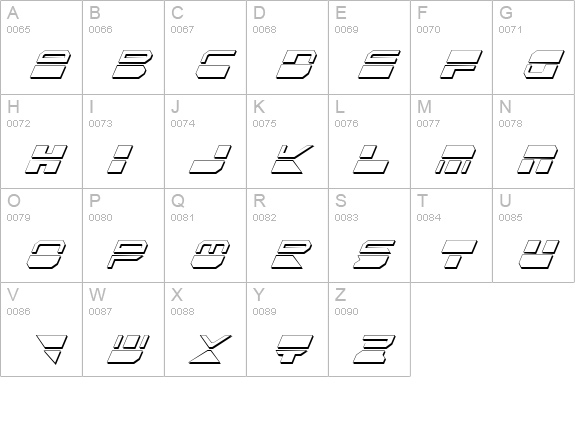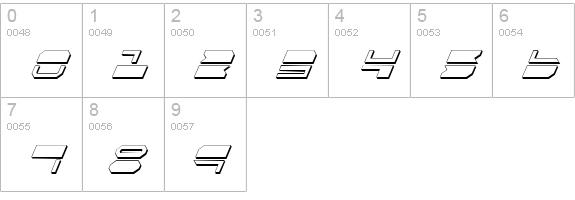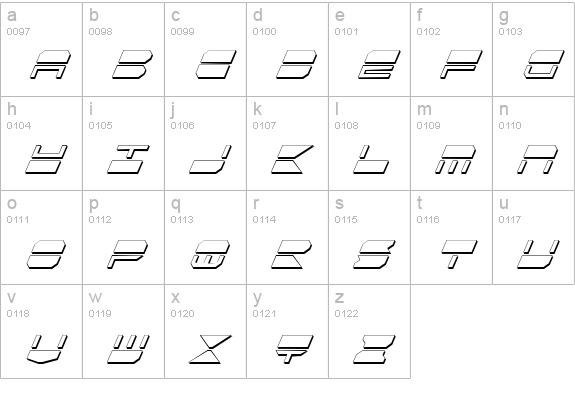
Quickmark Cond Shadow Ital is a distinctive, condensed-width variant in the Quickmark typeface family \xE2\x80\x94 well suited to design and typography projects.
Quickmark Cond Shadow Ital font is a stylish and modern typeface that exudes sophistication and elegance. Its sleek design and slanted italics give it a unique edge, perfect for adding a touch of flair to any project. The condensed form of the letters makes it ideal for saving space while still maintaining readability. What's even better is that Quickmark Cond Shadow Ital font is available for free download at FontsMarket.com. This means you can easily access this stunning typeface to enhance your designs without any cost. Whether you're working on a professional project or simply looking to spruce up your personal creations, Quickmark Cond Shadow Ital font is a versatile choice that will surely make a statement. Elevate your design game with this free and striking font today!